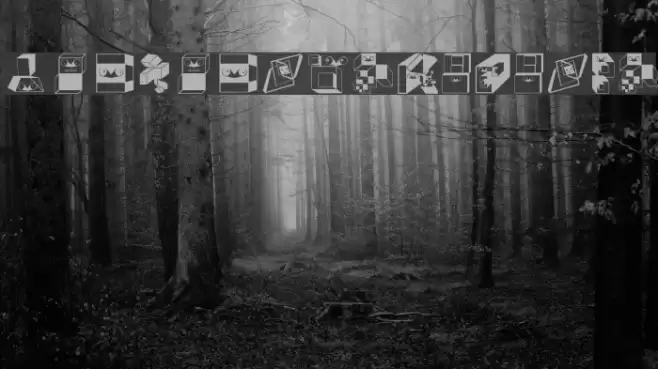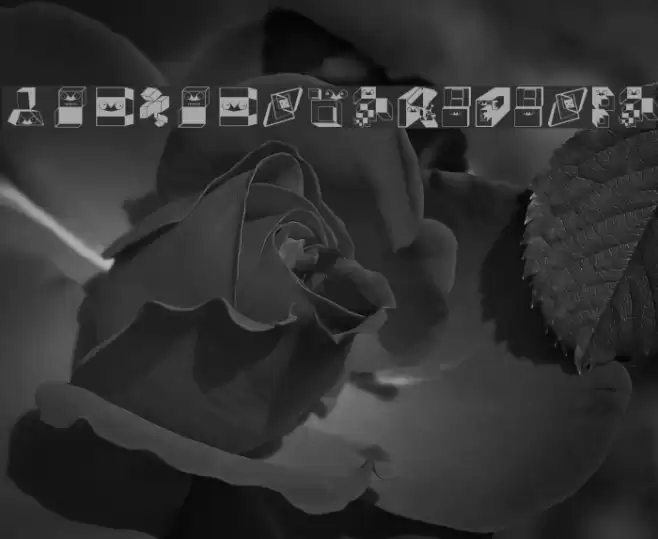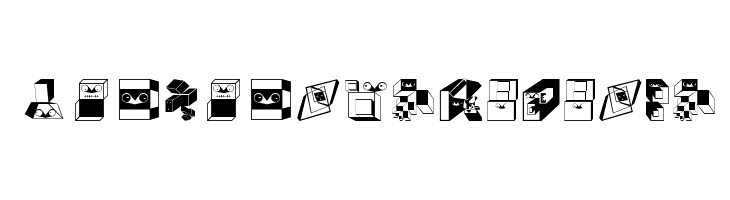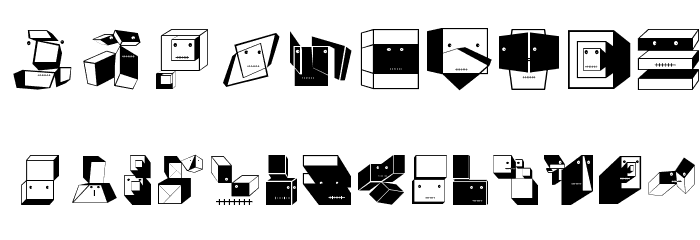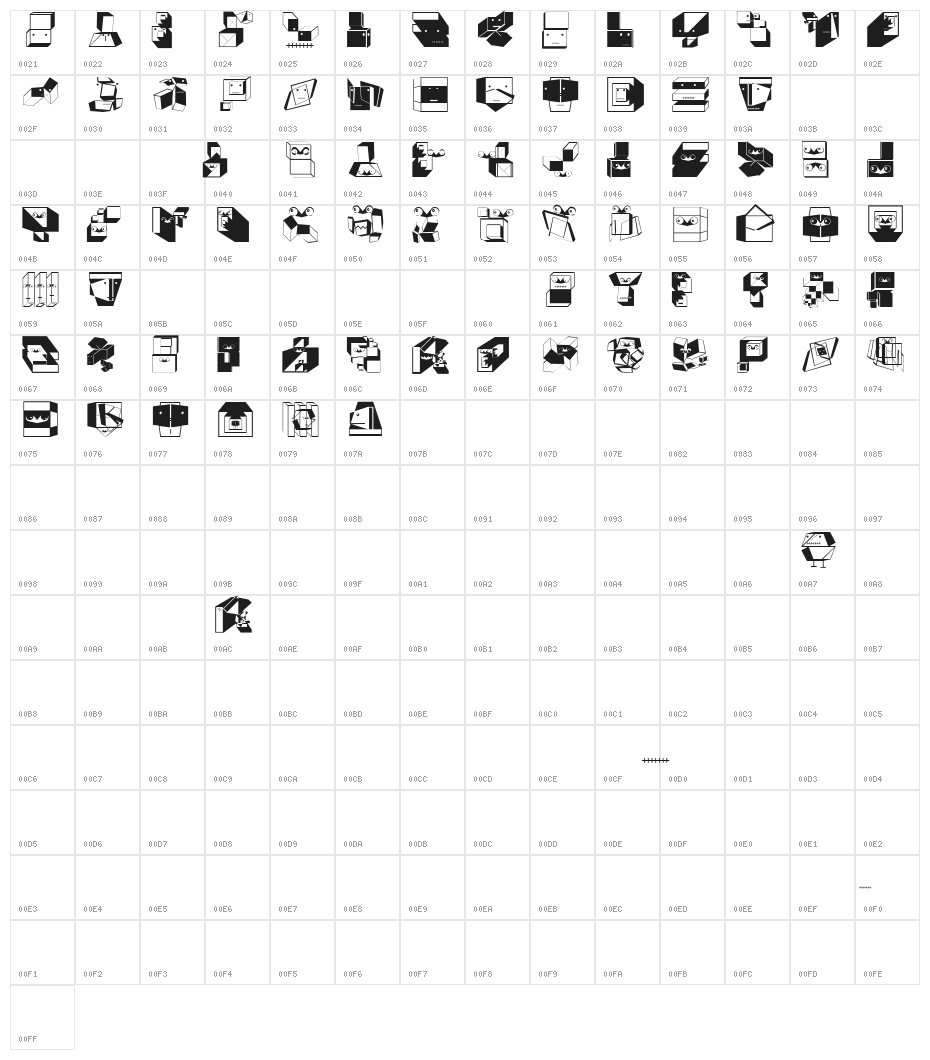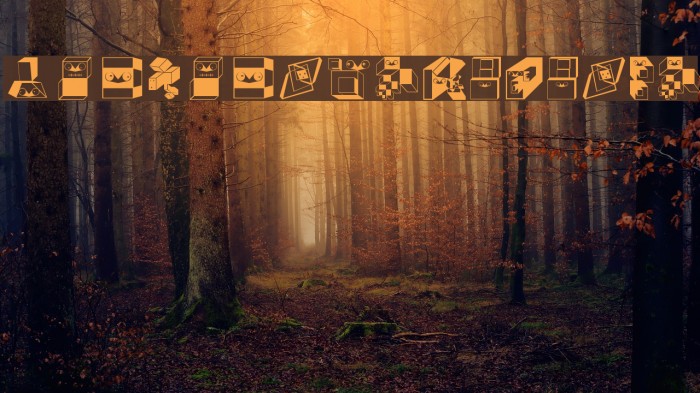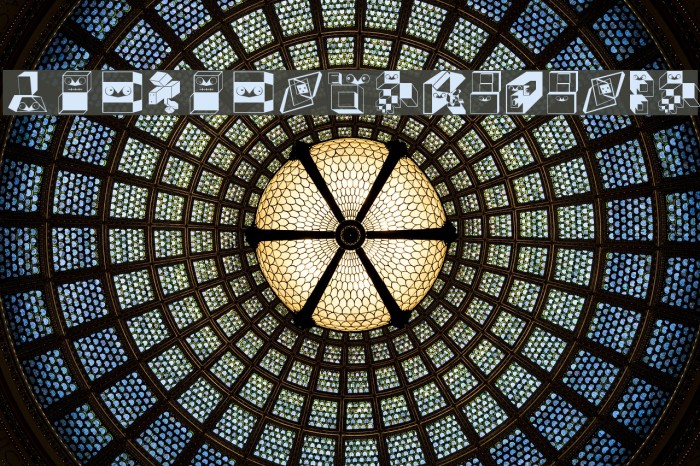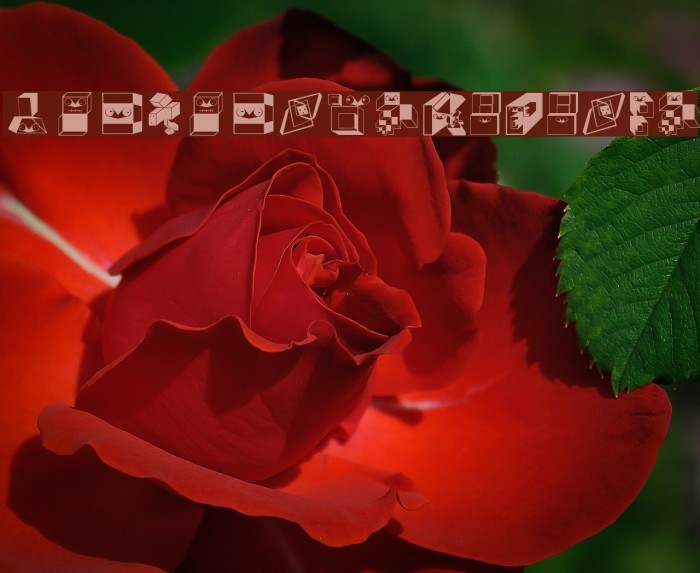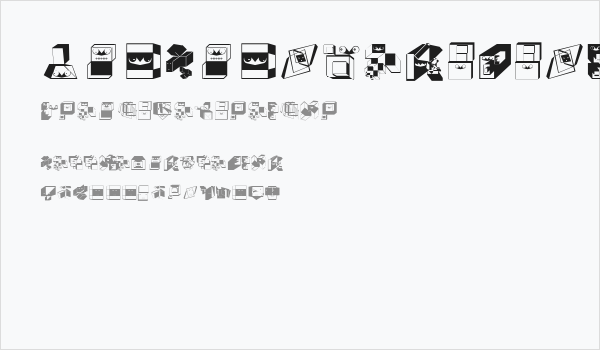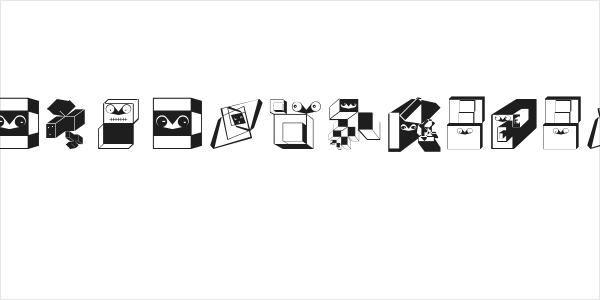
BauhausReminisce Font
BauhausReminisce Description
This font is a highly stylized and abstract representation of characters, drawing inspiration from geometric shapes and modern art movements. Each letter and symbol is constructed using a combination of cubes, triangles, and other angular forms, creating a three-dimensional effect. The design is bold and striking, with a playful yet sophisticated aesthetic. The characters are not immediately recognizable as traditional letters, making this font more suitable for artistic and decorative purposes rather than readability. The use of negative space and varying line thicknesses adds to the visual interest, making it a unique choice for creative projects.
A bold, geometric, and abstract font with a modern artistic flair from Uncategorized fonts.
- Proposed Projects: Ideal for use in modern art posters, avant-garde branding, album covers, and experimental design projects.
- Use Case: Logos, Posters, Artistic Displays